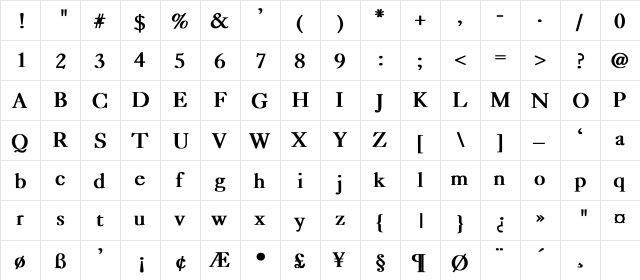
Caslon-Light Bold Bold Font Preview
Caslon-Light Bold Bold
Caslon-Light Bold Bold Font Details
Design Context for Caslon-Light Bold Typeface
Caslon-Light Bold takes a measured approach to typography — its balanced proportions and neutral character make it a reliable workhorse for both digital and print work. The heavy weight commands attention and anchors typographic hierarchies.